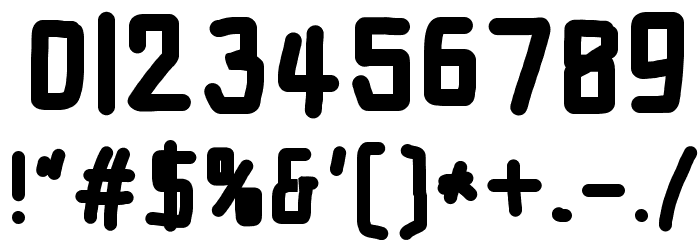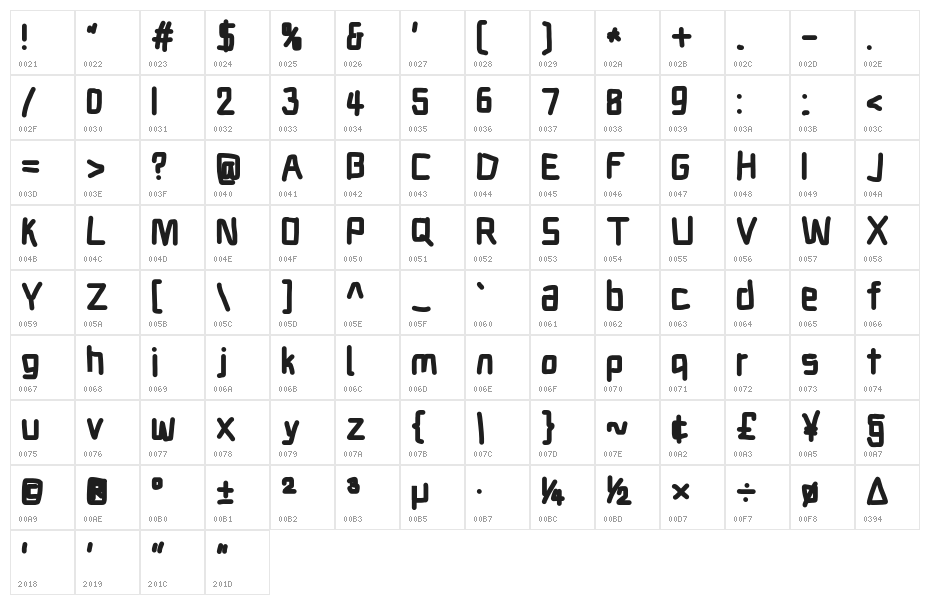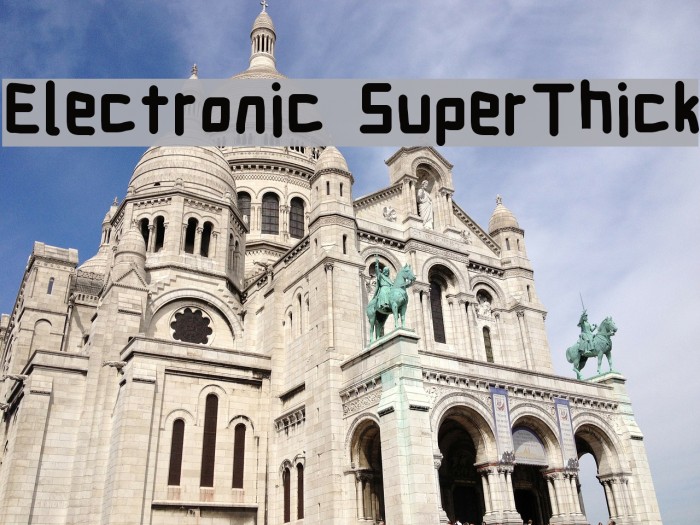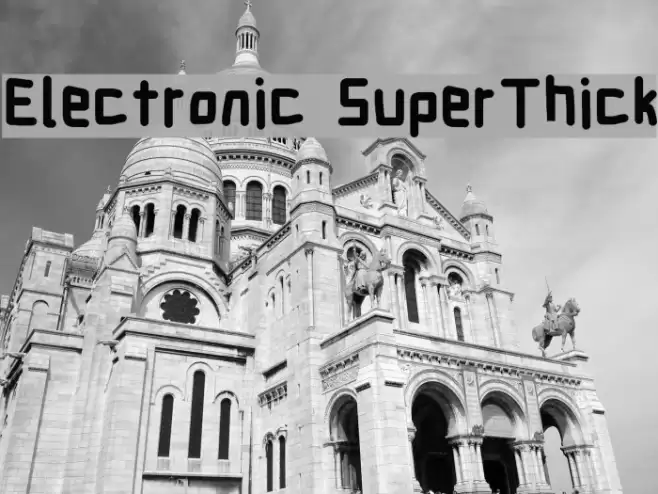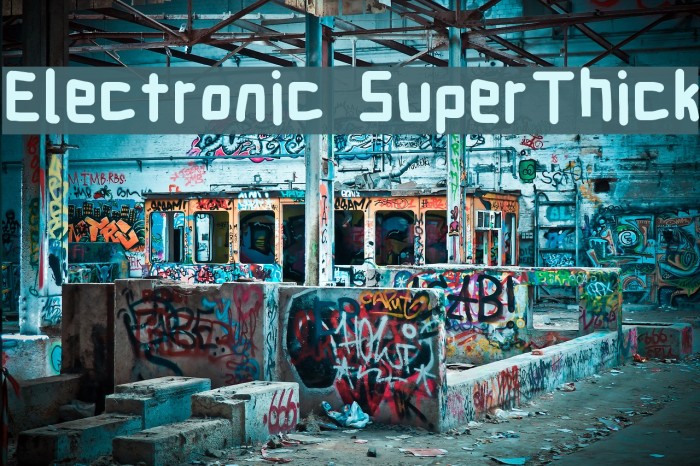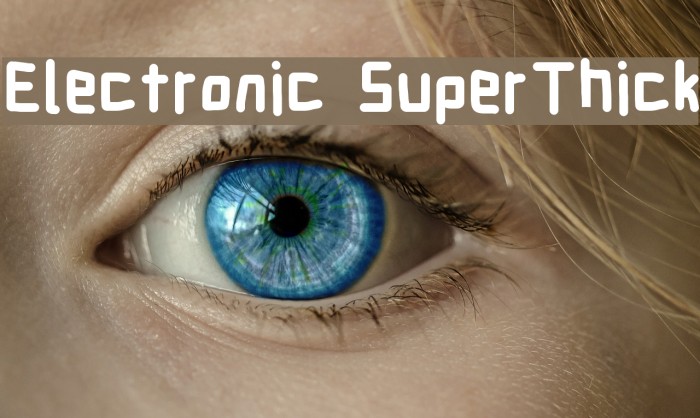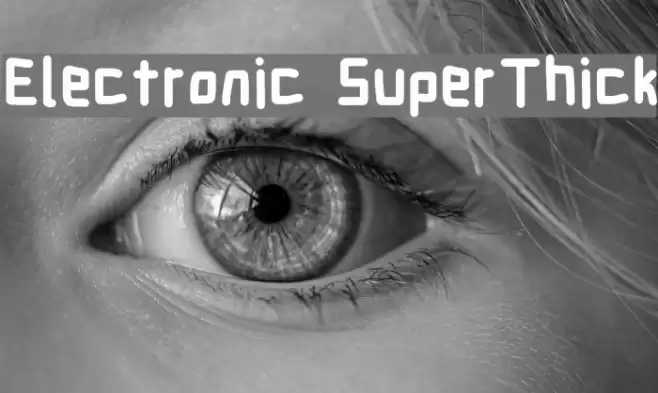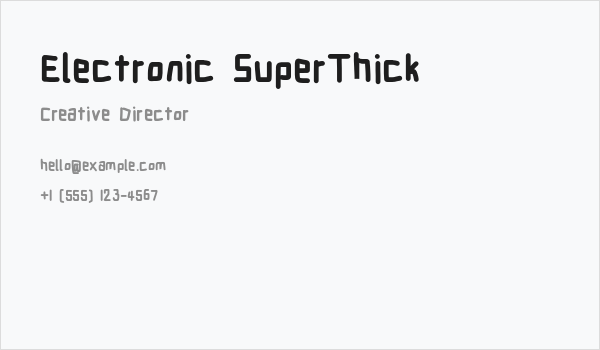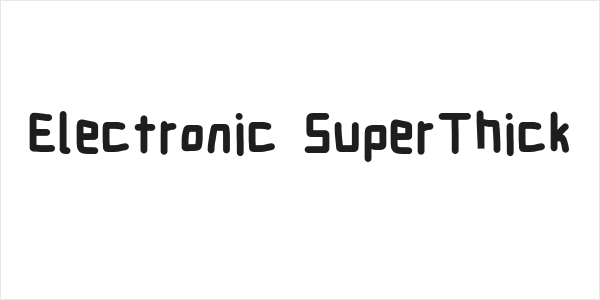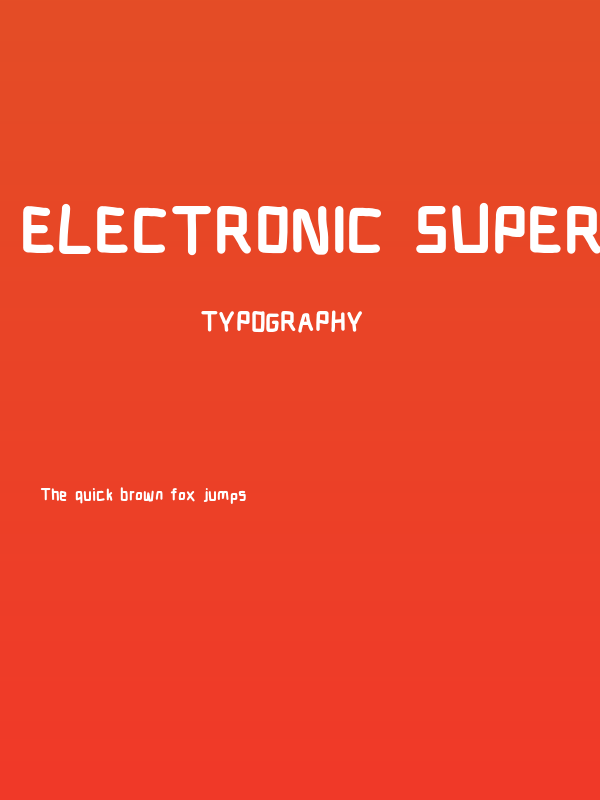
Electronic SuperThick Font
Electronic SuperThick Description
This font features a bold, thick style with a playful and slightly irregular appearance. The characters are rounded with a hand-drawn feel, giving it a unique and approachable look. The uppercase and lowercase letters maintain a consistent weight, contributing to its strong visual impact. Numbers and special characters follow the same design principles, ensuring uniformity across all glyphs. The font's thick strokes and rounded edges make it highly legible, even at smaller sizes, while its quirky style adds a touch of personality.
Overall StylePlayful, Hand-drawn
Proposed ProjectsIdeal for children's books, playful branding, posters, and creative projects that require a fun and approachable typeface.